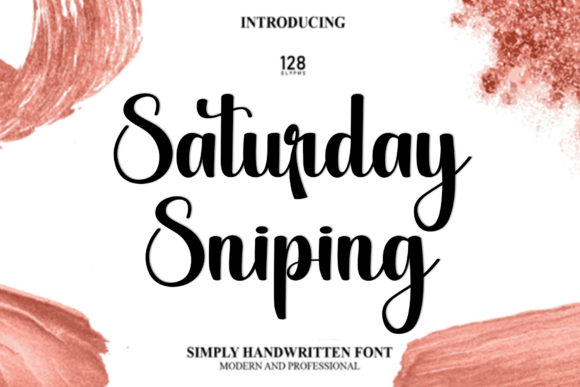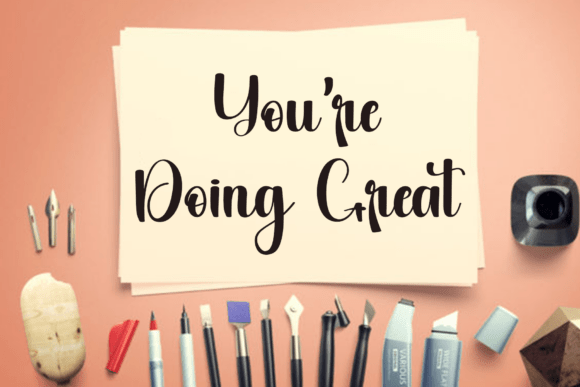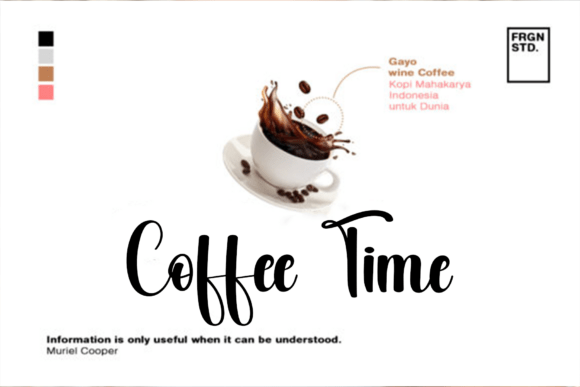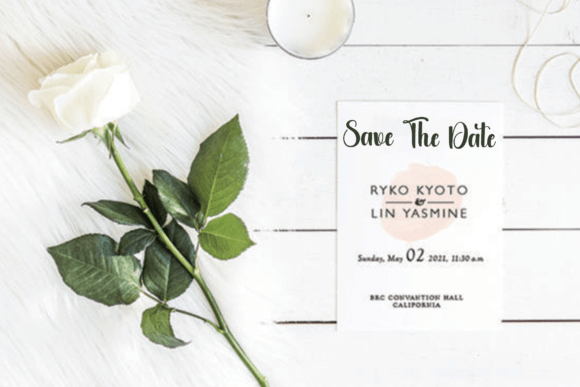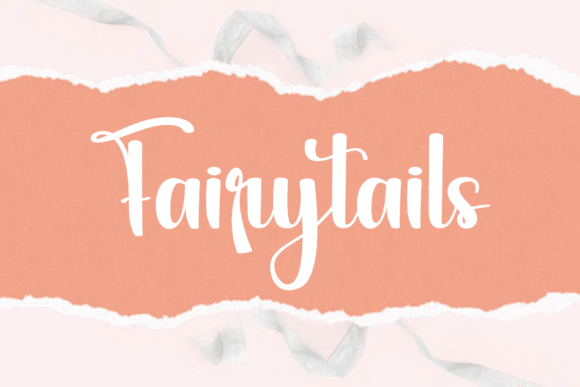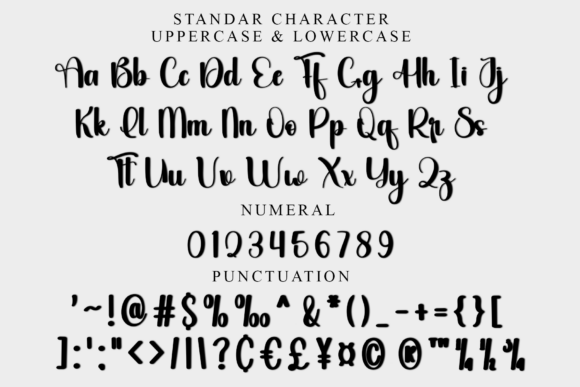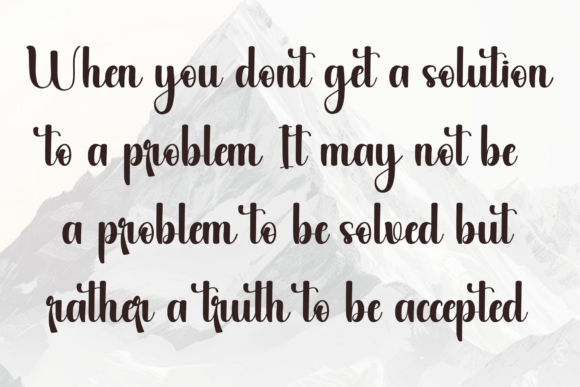
Saturday Sniping Script Fonts
Capture the visceral warmth of the winter season with Saturday Sniping—a display face designed for the art of celebration. Moving beyond mere ornamentation, this typeface offers a sophisticated take on holiday nostalgia, making it the definitive choice for high-end stationery, festive packaging, and evocative editorial design. Its playful rhythm and enchanted silhouettes bring a curated, handcrafted feel to every character, ensuring your compositions radiate seasonal magic.